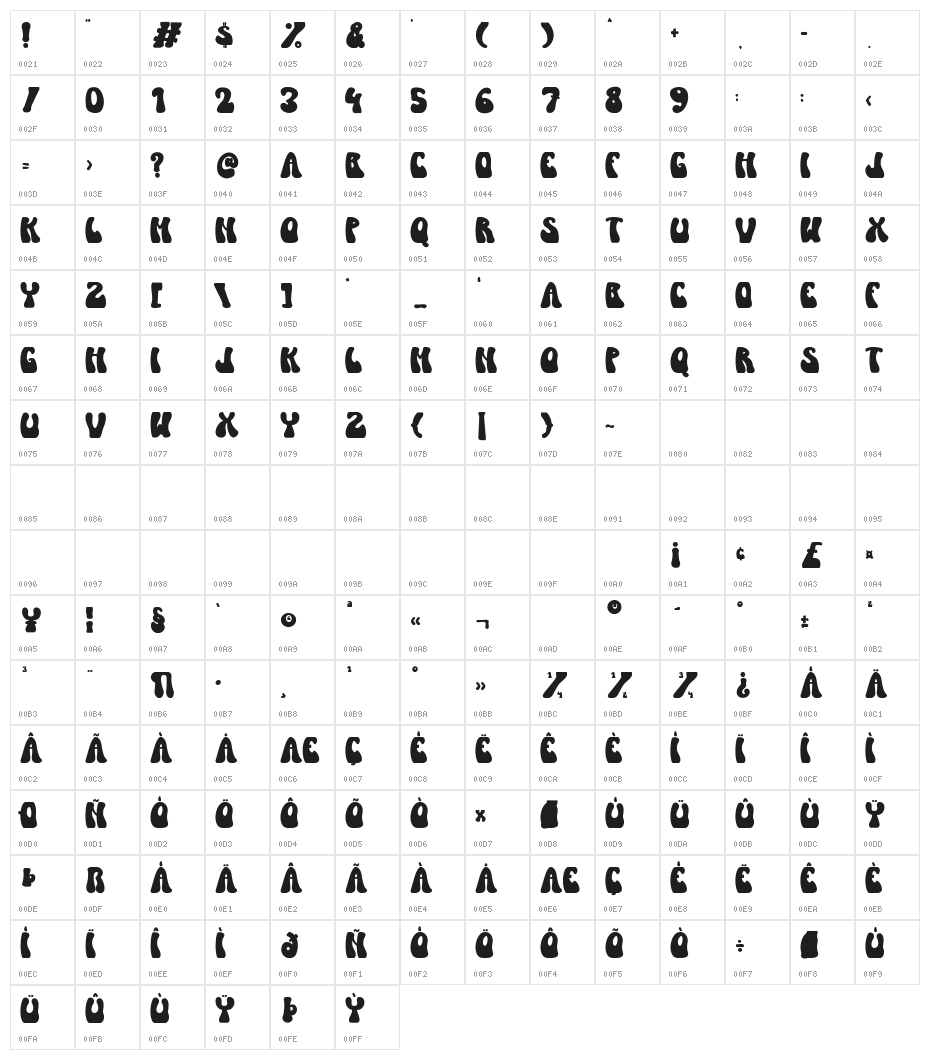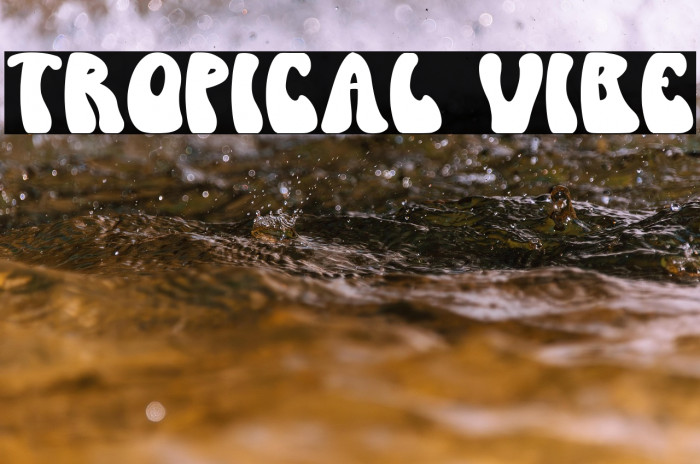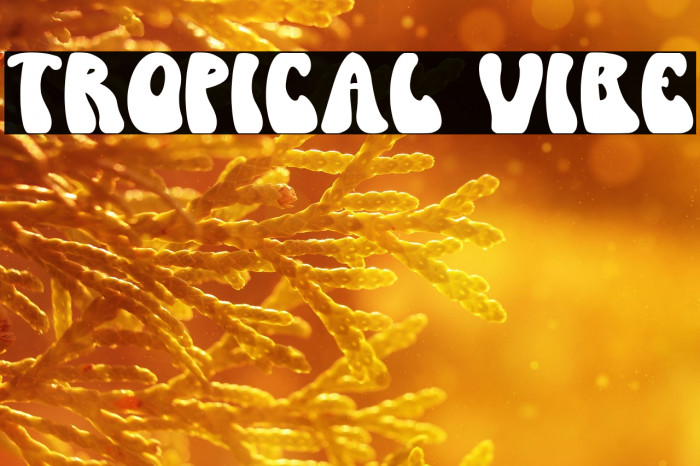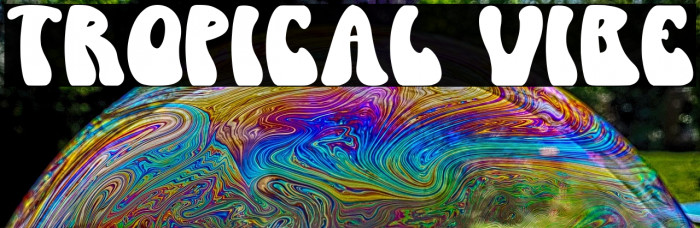
Tropical Vibe Font
Tropical Vibe Description
This font exudes a playful and bold character with its thick, rounded strokes and whimsical design. The letters are heavily stylized, featuring unique curves and exaggerated forms that give it a lively and energetic appearance. The font's boldness and distinctive shapes make it stand out, capturing attention with its fun and informal vibe. It is reminiscent of tropical themes, evoking a sense of warmth and relaxation. The numbers and special characters maintain the same playful style, ensuring consistency across all elements. This font is perfect for projects that require a touch of creativity and a break from traditional typography.
| Proposed Projects | Ideal for posters, event invitations, children's books, and branding for tropical-themed products. |